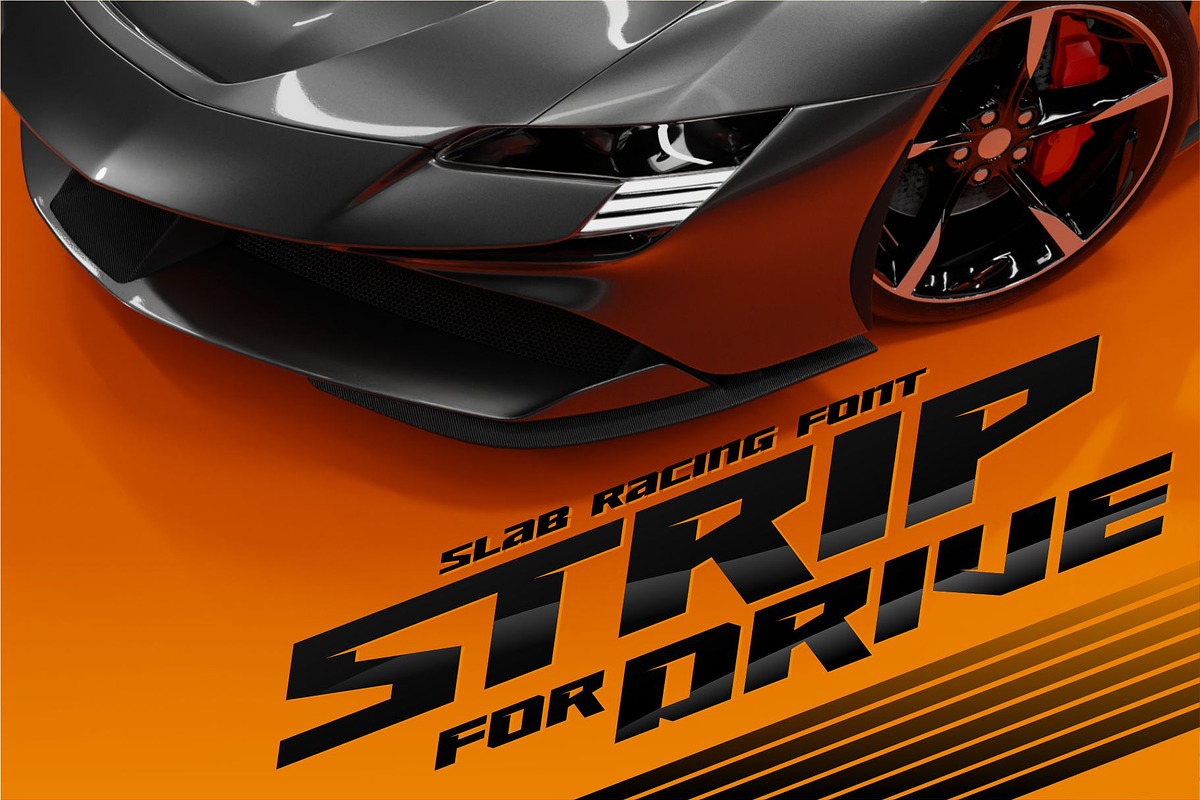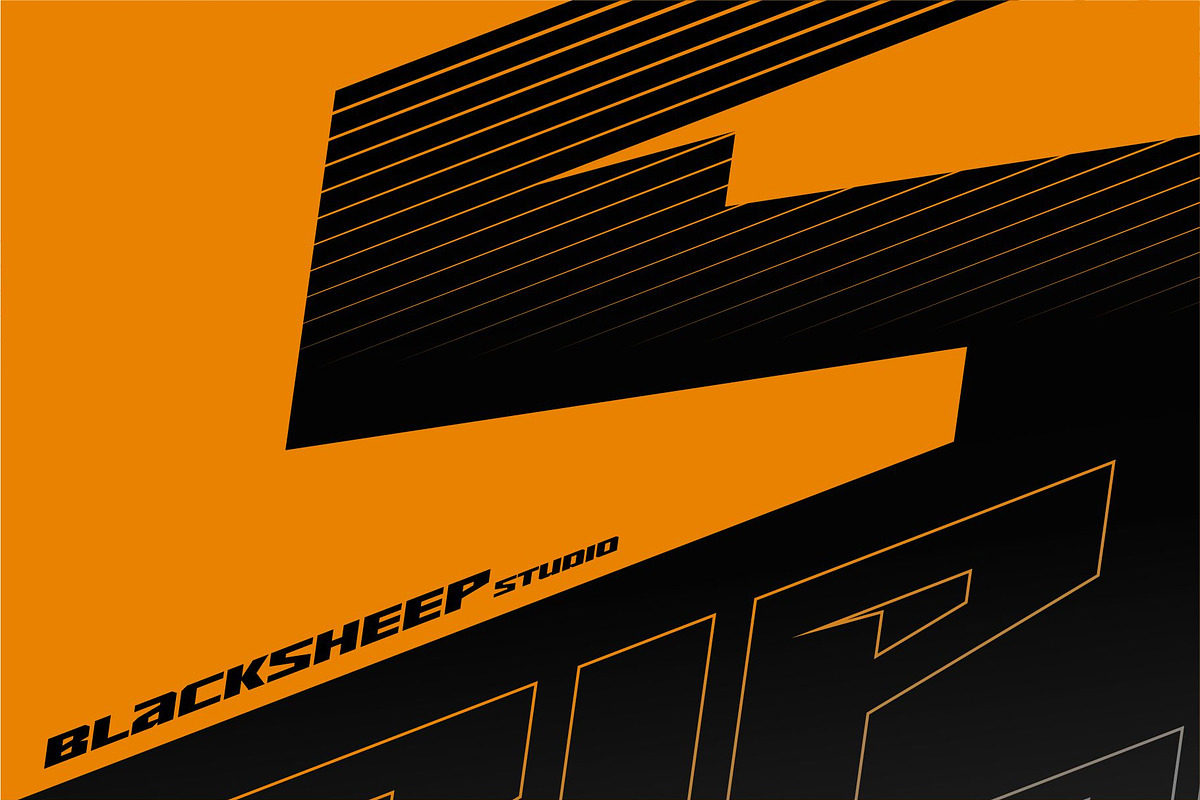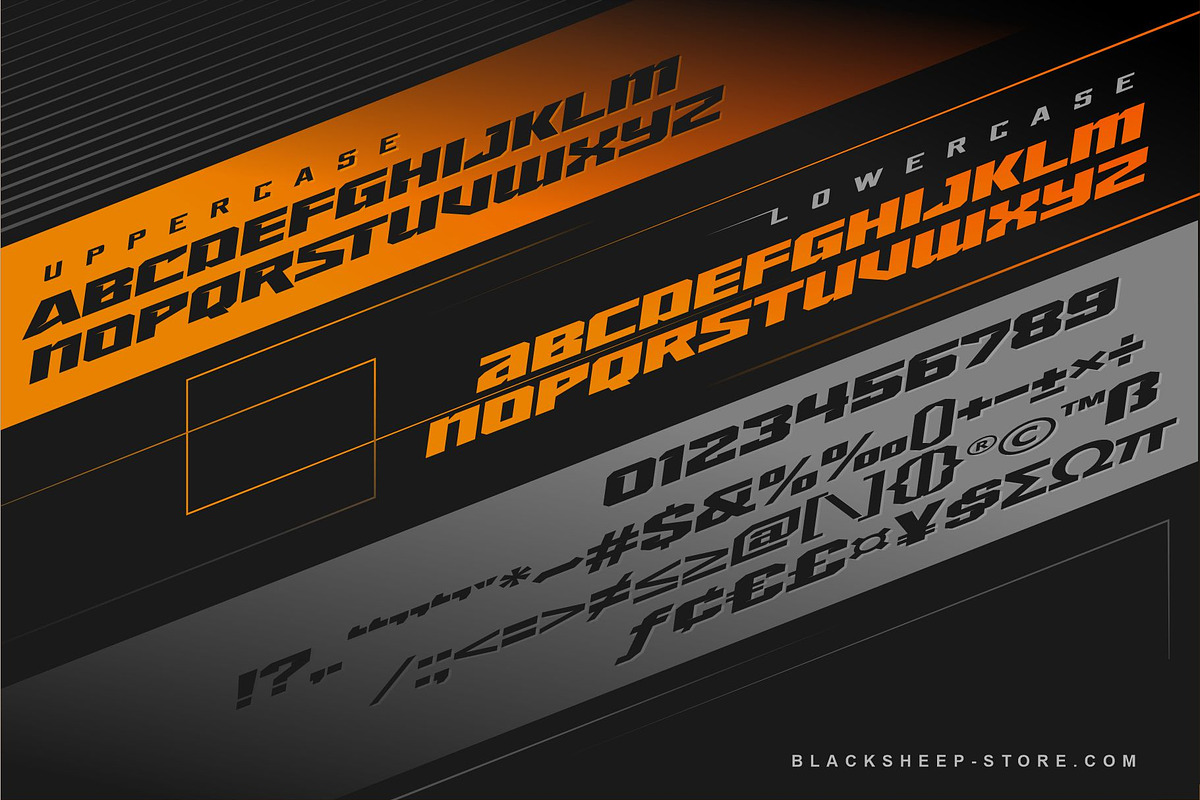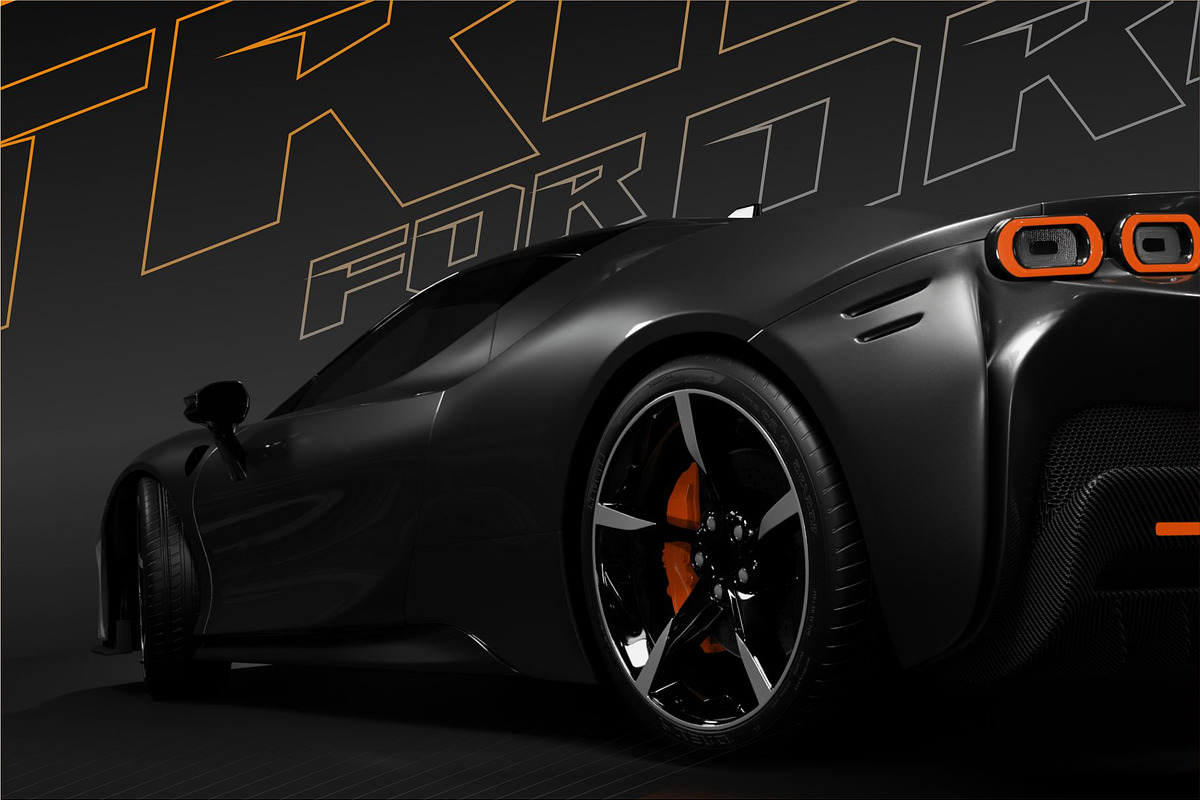
STRIP for DRIVE
STRIP for DRIVE is a simple typography that looks modern and futuristic. with square corners that give it a bold and fast look.
You don't need to modify it anymore, because I've made it perfect for racing designs, games, posters, automotive brands, logos, etc. we provide regular and italic style options. along with frequently used symbols